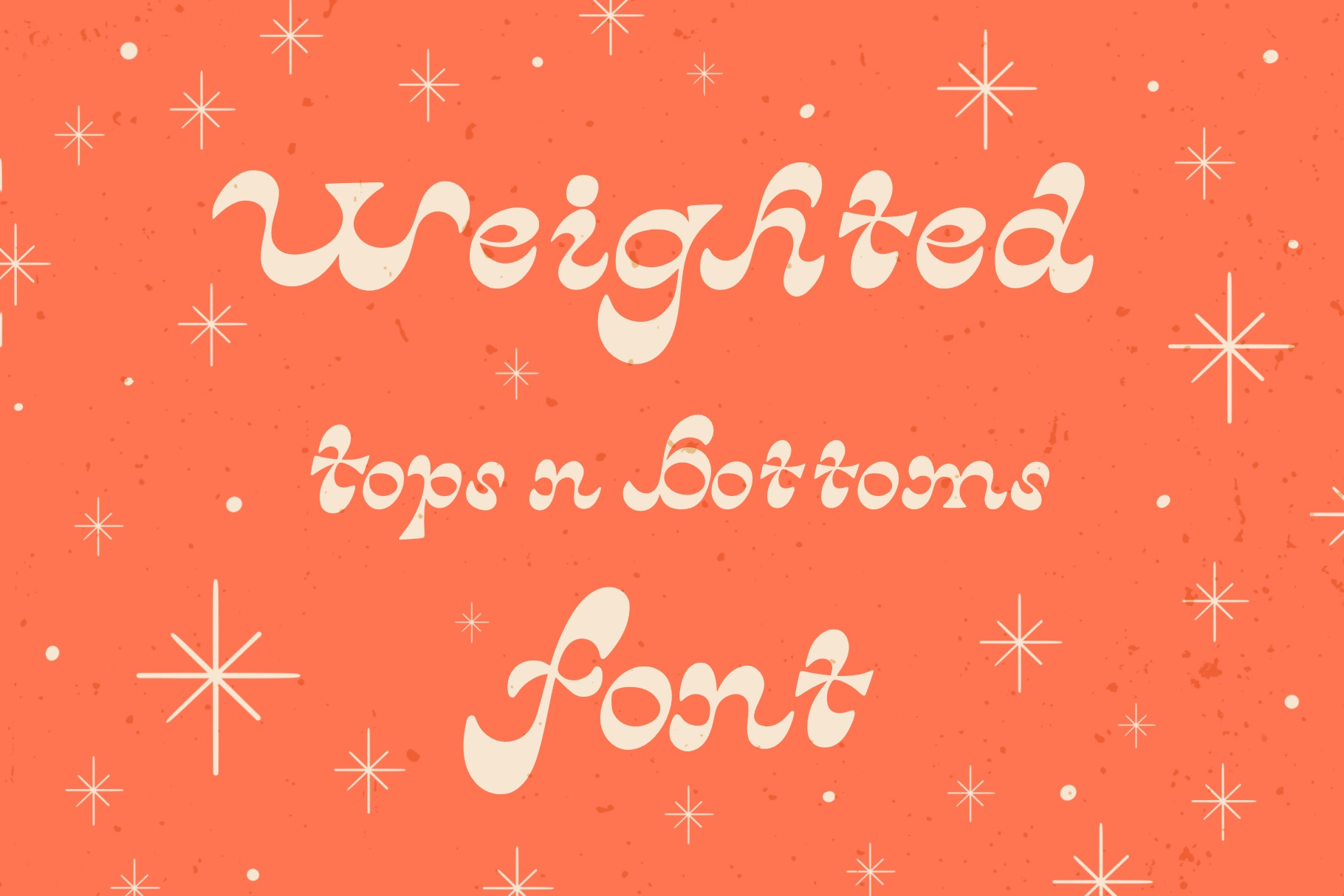
Weighted Tops 'N Bottoms Font
This 1970's inspired weighted tops 'n bottoms font is a playful and funky take on the hand lettering of the 1970s. See the images for included characters.